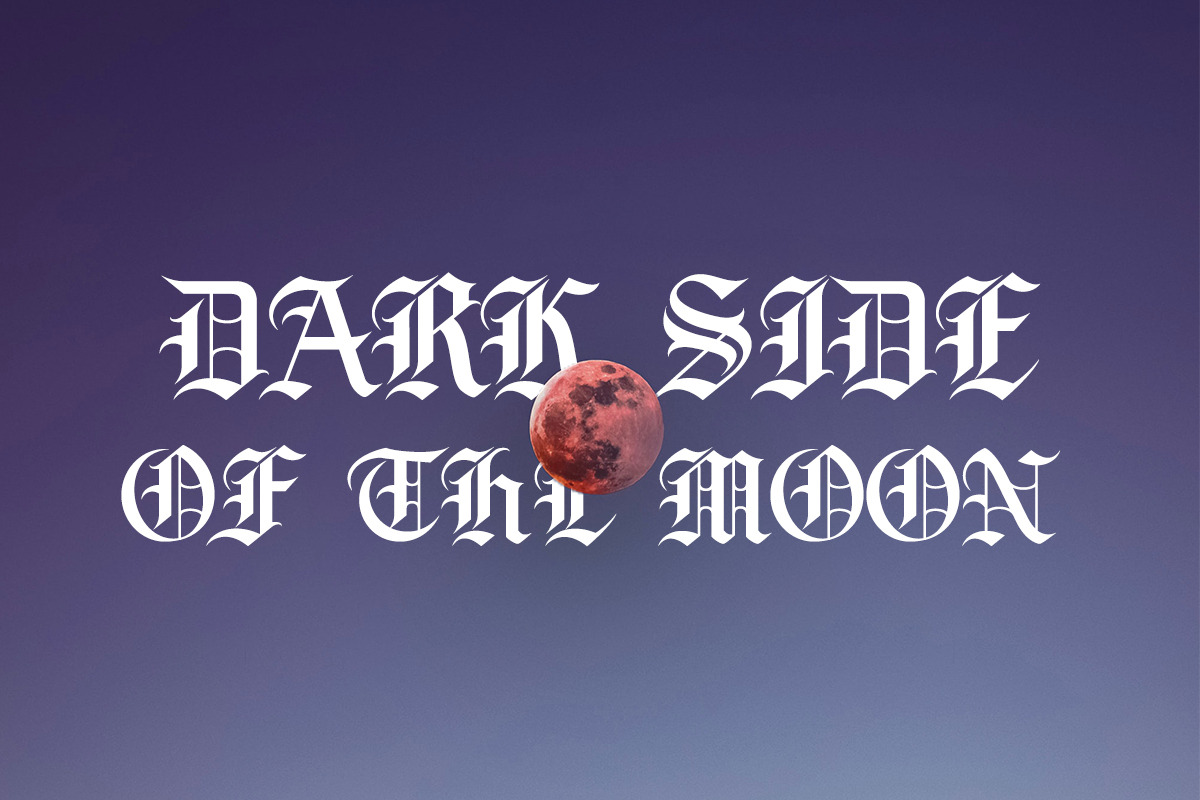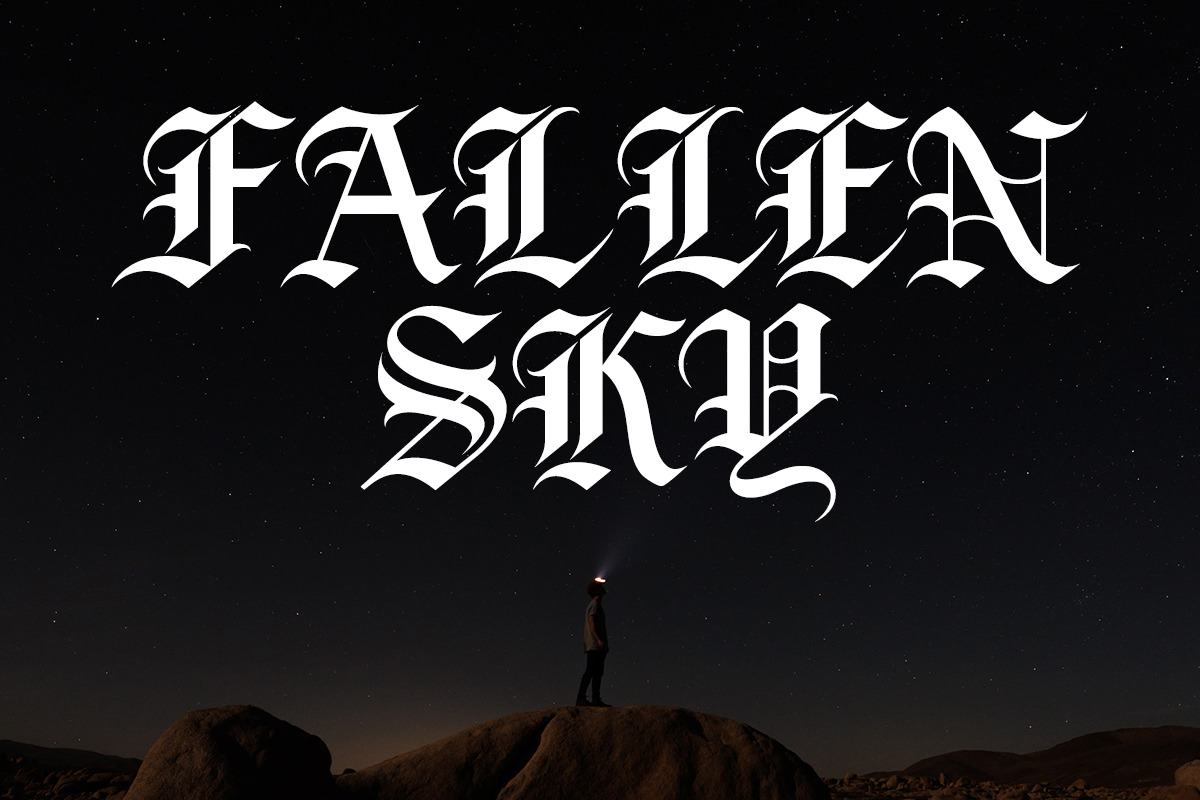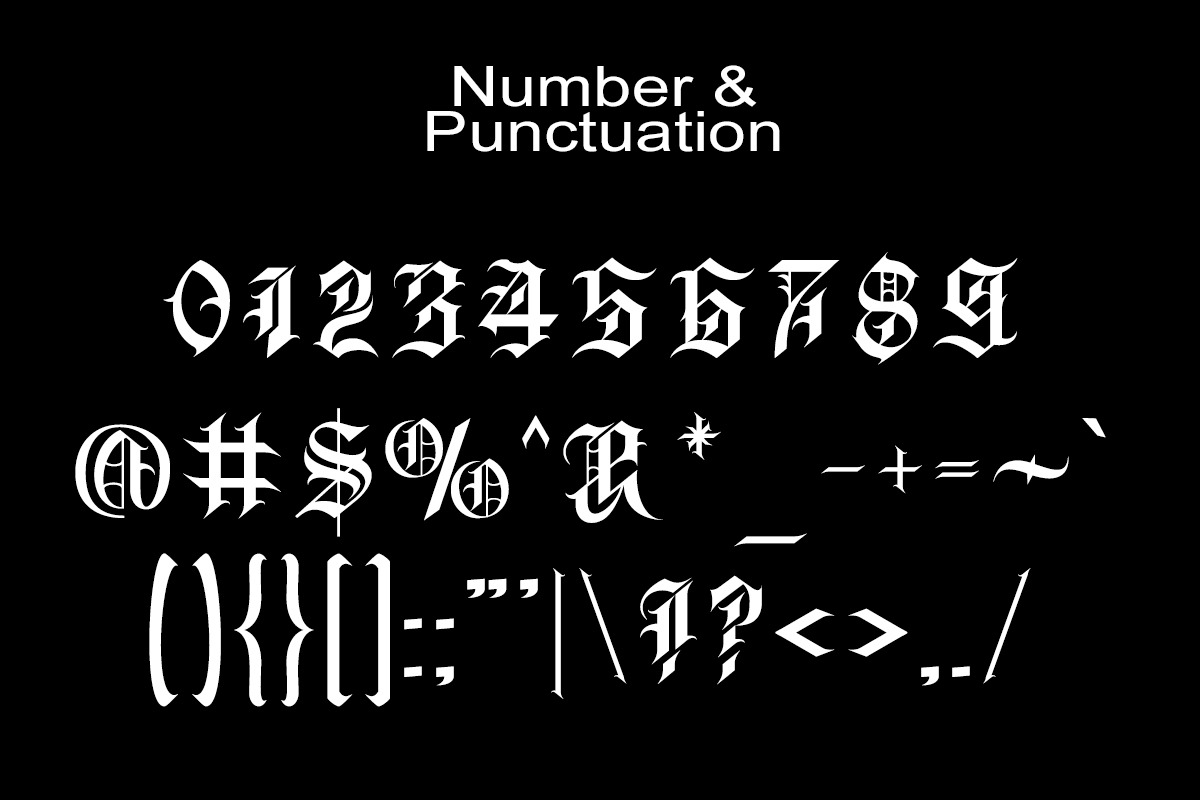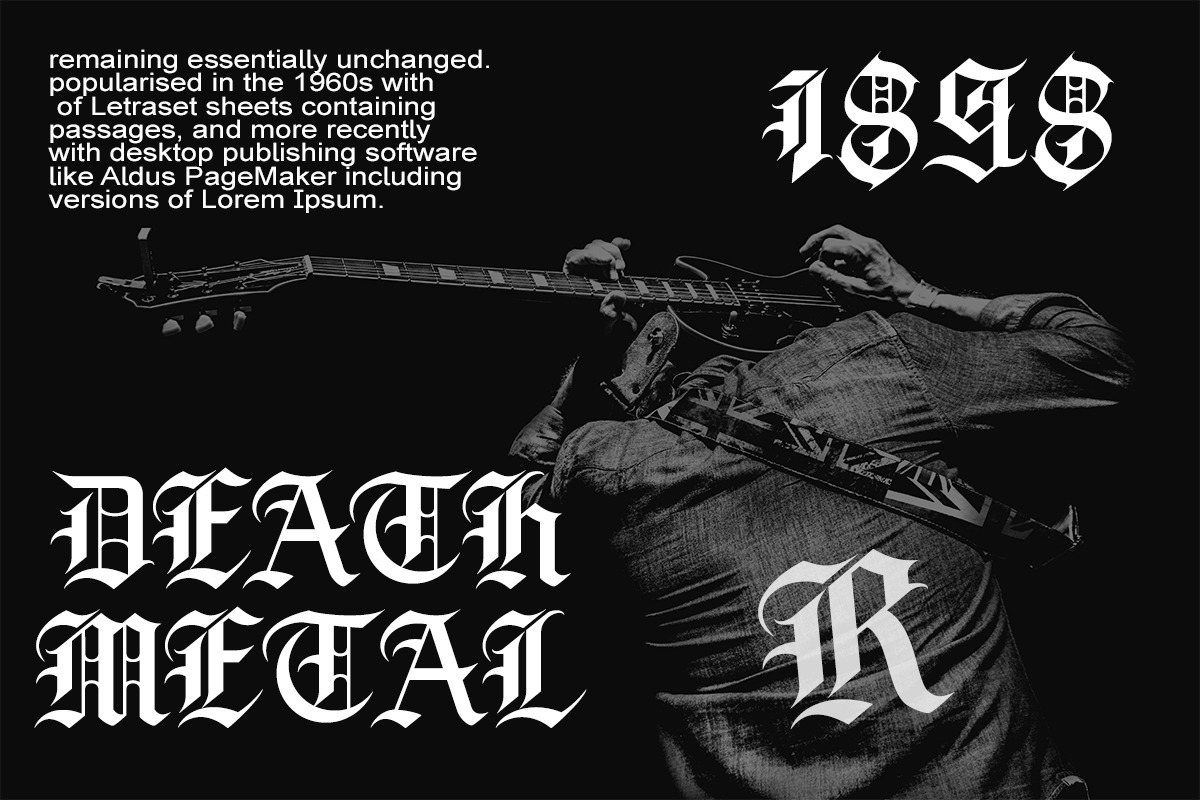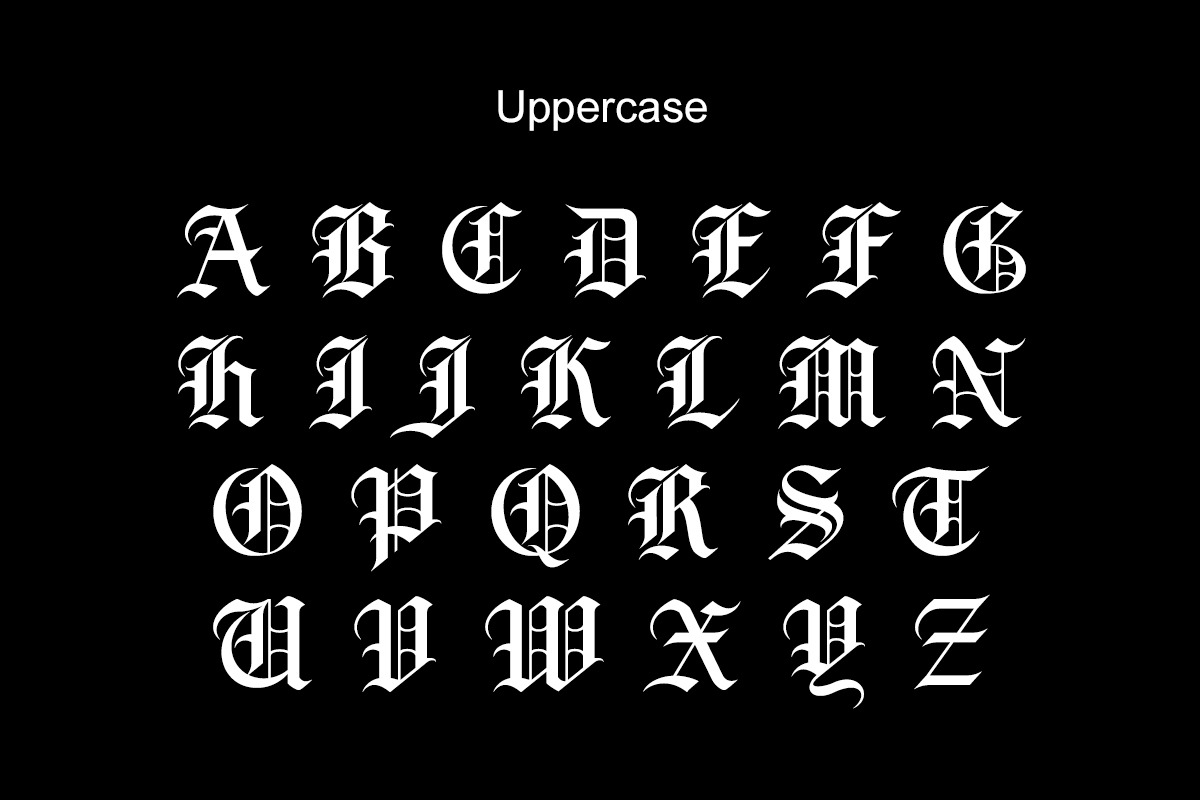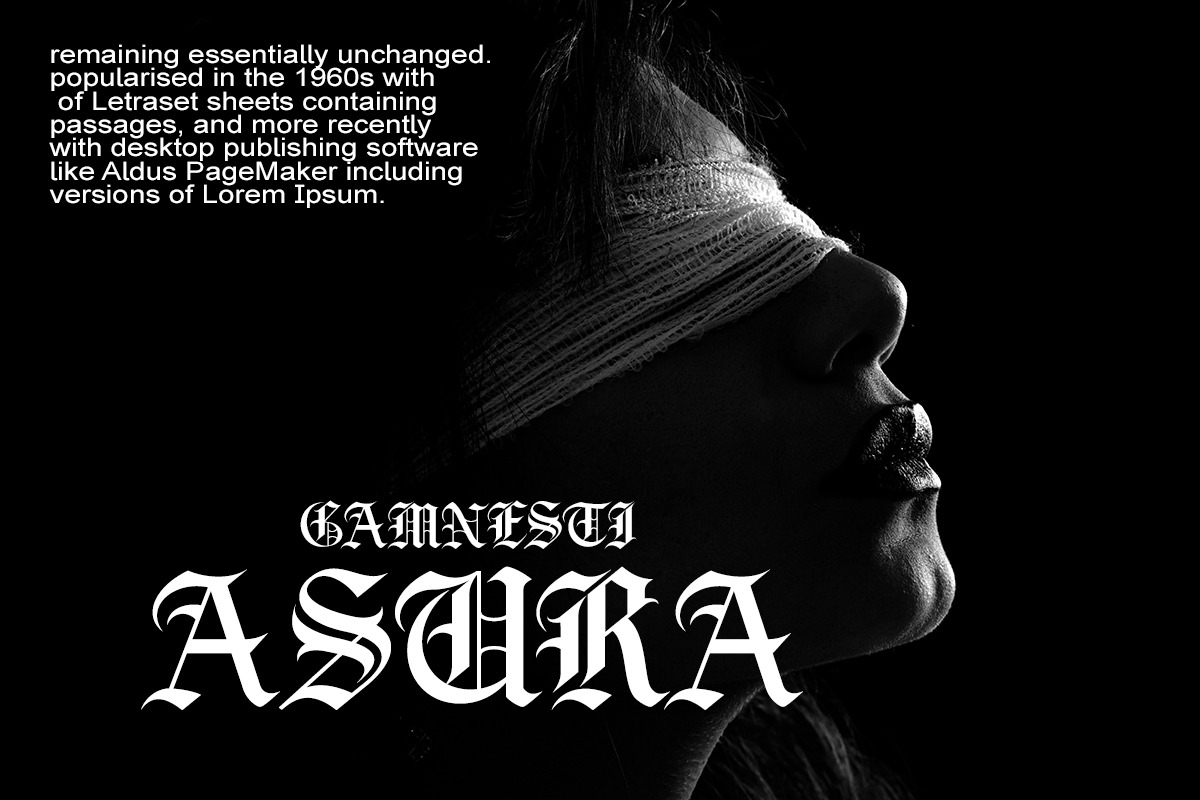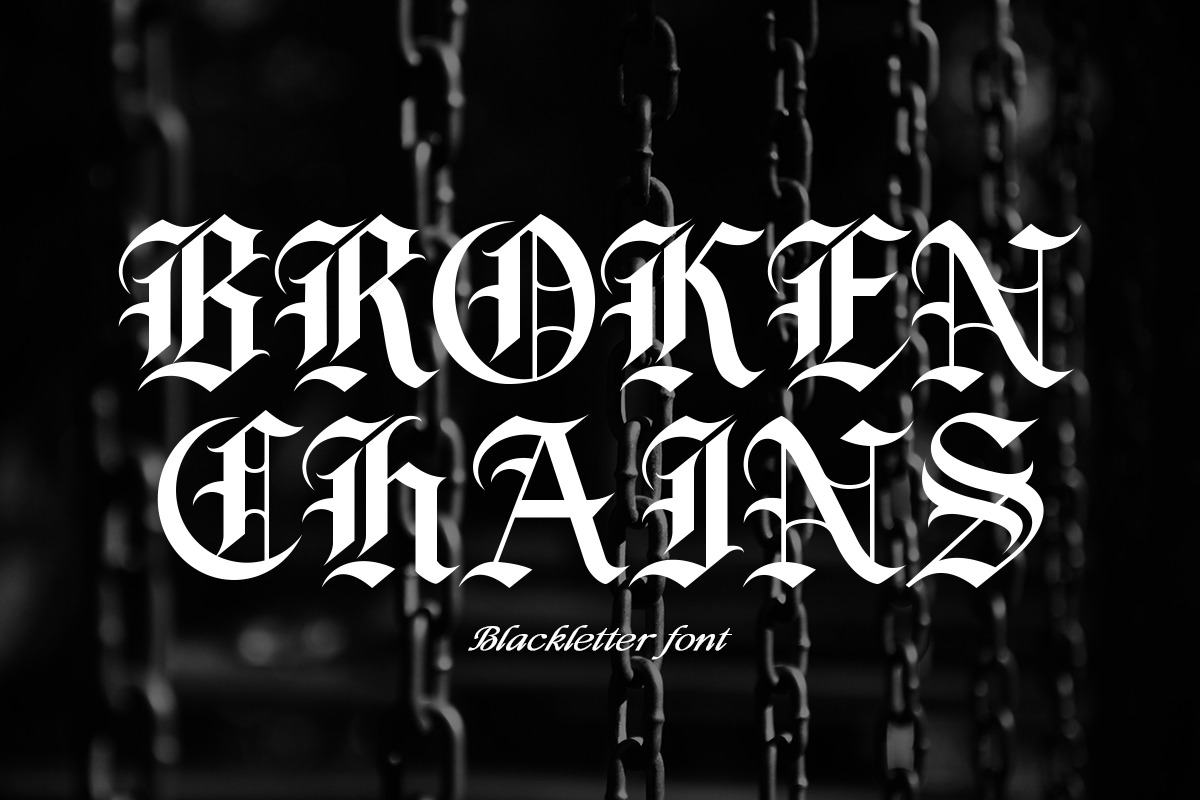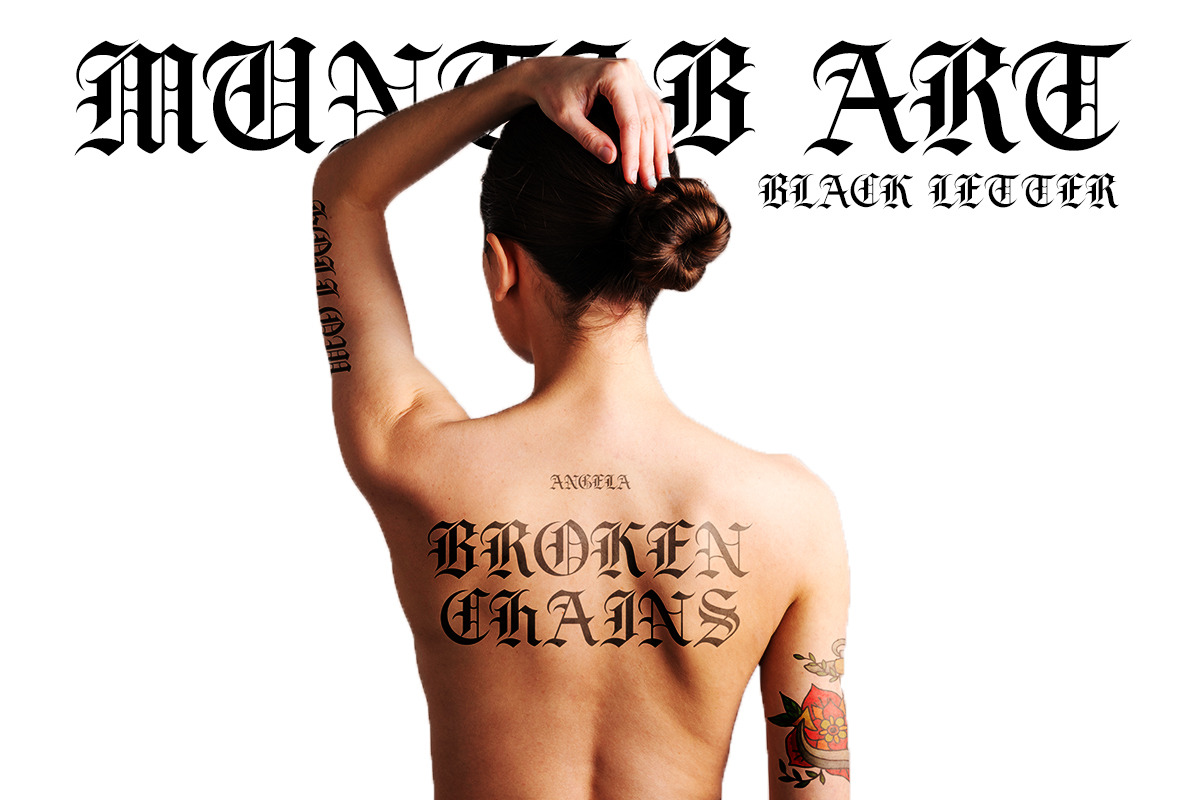
Broken Chains | Blackletter Font
Broken Chains fonts includes uppercase letters, numerals, a large range of punctuation. Blackletter font with modern style. Created for poster, web design, branding, illustrations, badges, shirt design and some other works.